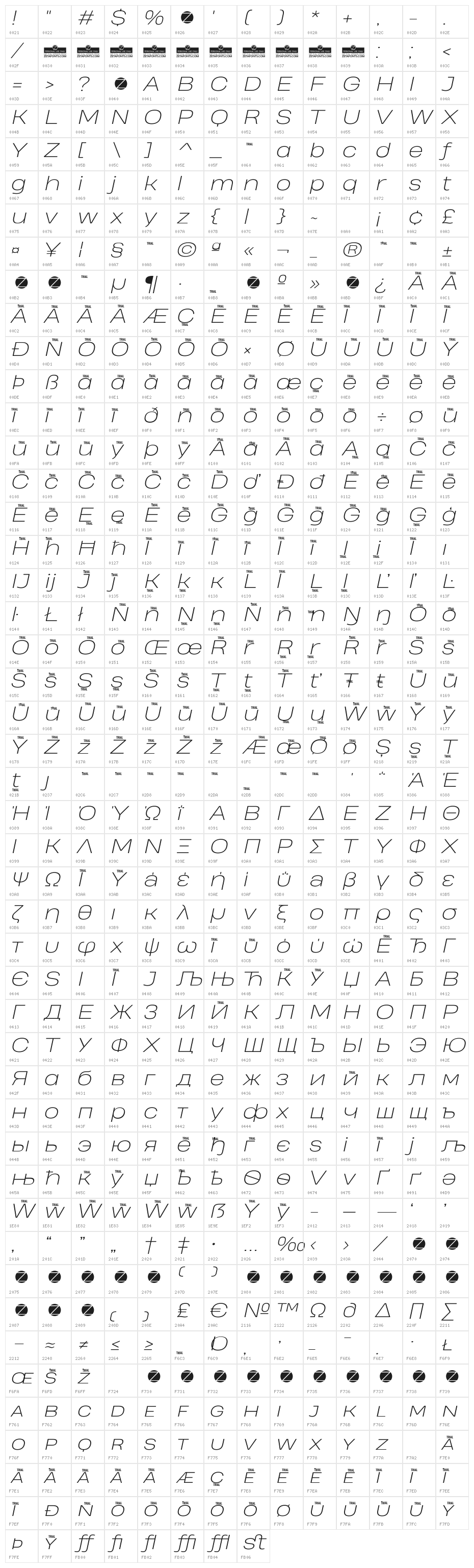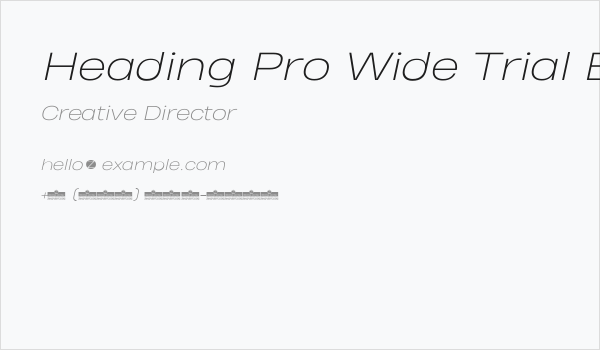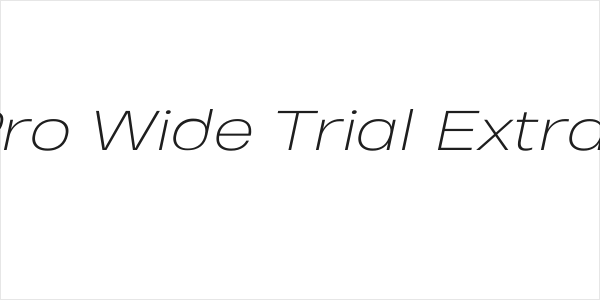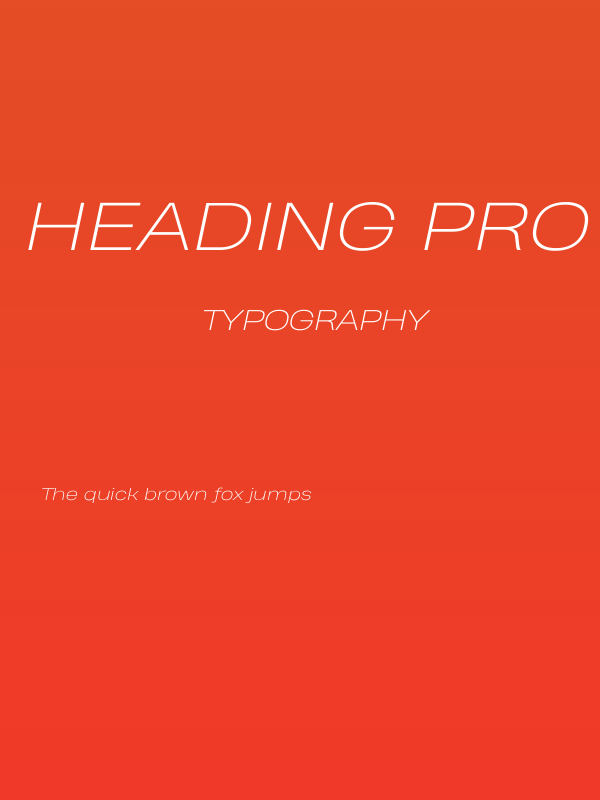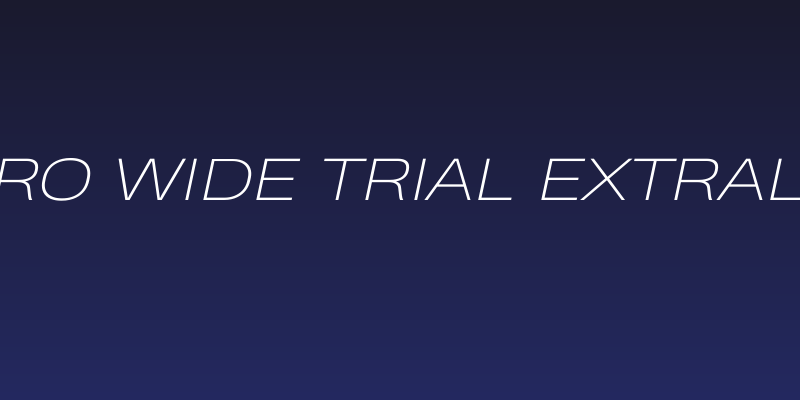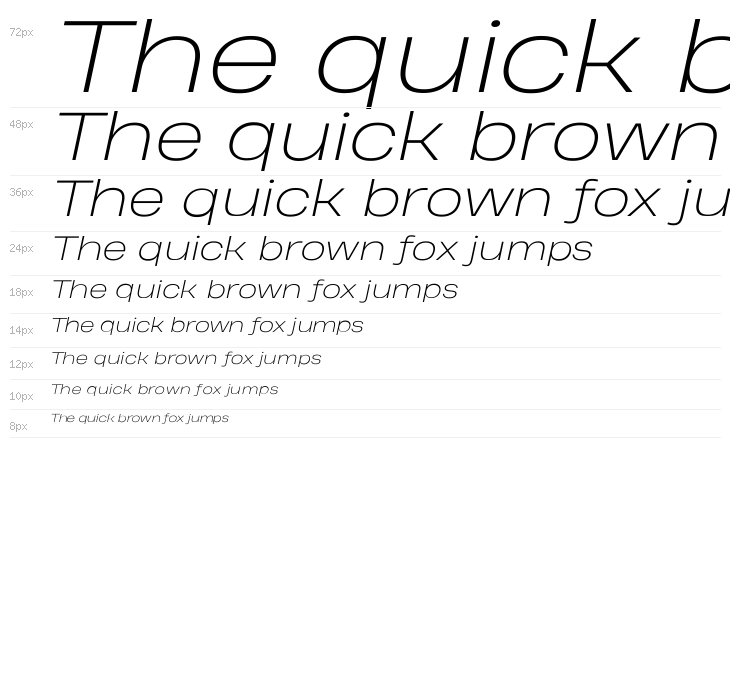
Heading Pro Wide Trial ExtraLight Italic Font
Heading Pro Wide Trial ExtraLight Italic Description
This font presents a sleek and modern aesthetic with its extra light weight and italic style. The characters are elegantly elongated, offering a wide stance that enhances readability while maintaining a sophisticated appearance. The smooth curves and clean lines give it a contemporary feel, suitable for a variety of design contexts. The uppercase and lowercase letters are well-proportioned, and the special characters are designed to complement the overall style. The font's minimal contrast in stroke thickness contributes to its refined and understated look.
| Proposed Projects | Ideal for modern branding, fashion magazines, and minimalist web design projects. |